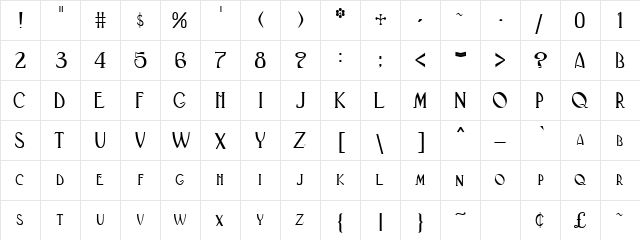
Labium Normal
Design Context for Labium Typeface
Labium is a composed and adaptable typeface that performs quietly and consistently across a wide range of design contexts.